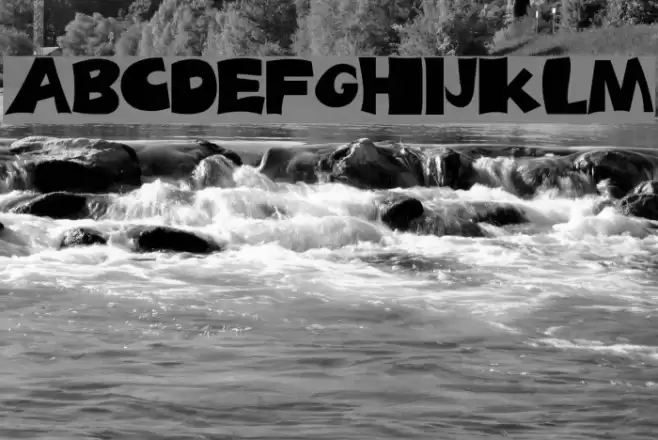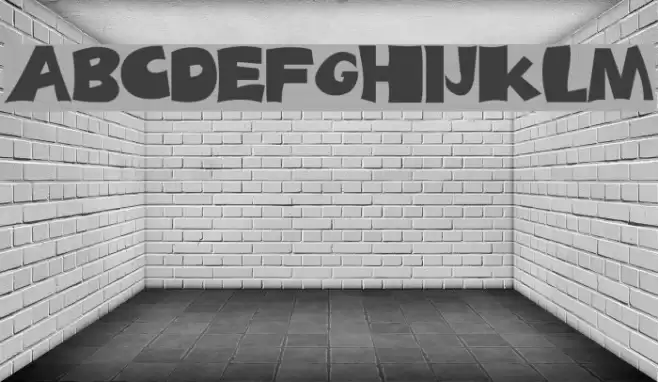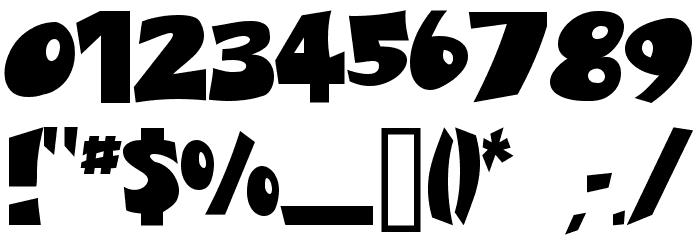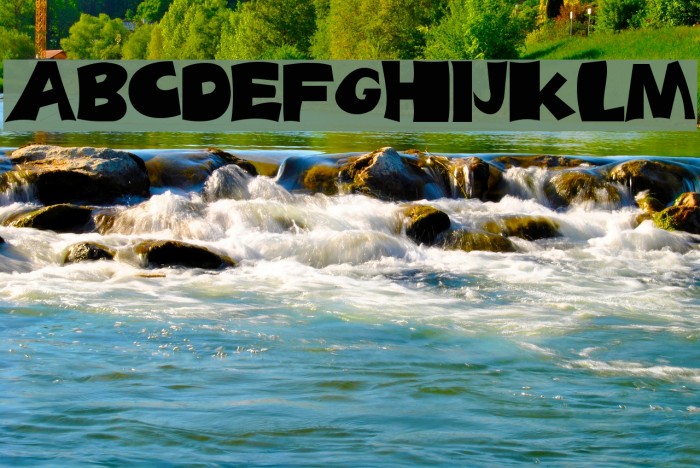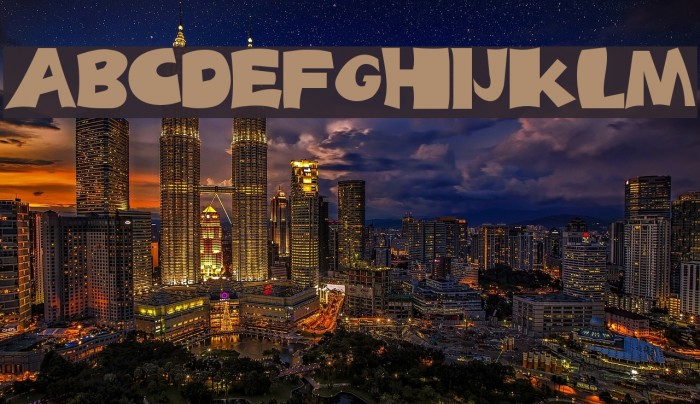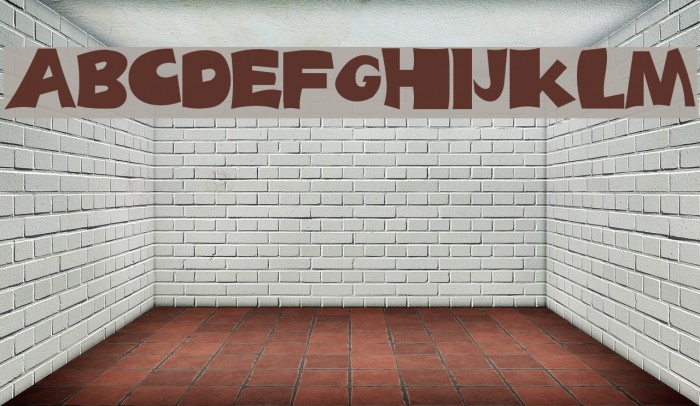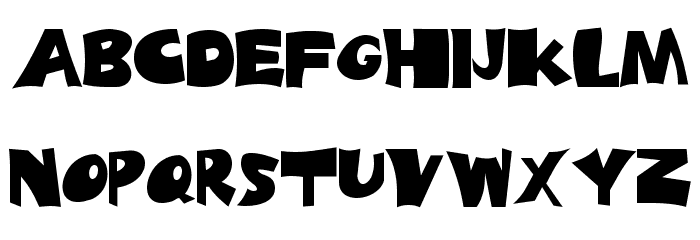
Big Truck Font
Big Truck Description
This bold and playful font features exaggerated, chunky letterforms with a dynamic, energetic style. The characters have a cartoonish appearance, with uneven edges and varying stroke widths that create a sense of movement and fun. The uppercase and lowercase letters maintain a consistent whimsical theme, while the numbers and special characters are equally bold and expressive. This font is perfect for projects that require a lively and eye-catching design, making it ideal for children's books, comic strips, or playful branding.
A bold, playful font with exaggerated, cartoonish letterforms from Handwritten fonts.
- Proposed Projects: Ideal for children's books, comic strips, playful branding, and eye-catching posters.
- Overall Style: Playful, Energetic, Cartoonish